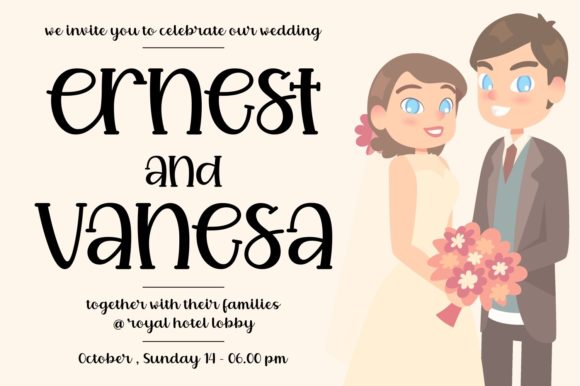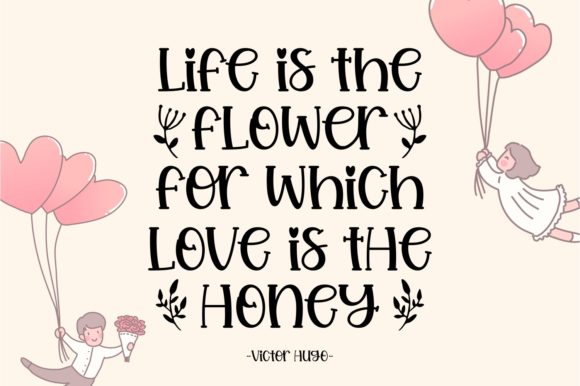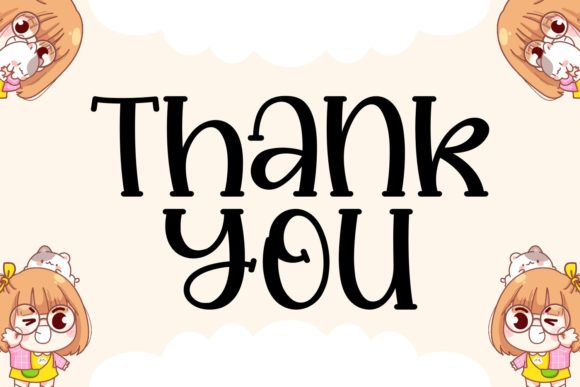
Introducing Gloria Jessica Font: The Playful Serif Font for Happy Projects
Are you looking for a font that can add a touch of playfulness and happiness to your designs? Look no further than the Gloria Jessica Font! This delightful serif font is perfect for creating a wide range of projects, from children’s magazines and books to apparel designs, product packaging, and more. In this article, we’ll take a closer look at the Gloria Jessica Font, its features, and how you can use it to bring a smile to your audience’s faces.
The Personality of Gloria Jessica Font
Gloria Jessica Font is a playful serif font that exudes positive and happy vibes. Its unique design makes it an excellent choice for projects that require a friendly and approachable tone. The font’s serifs are carefully crafted to add a touch of elegance, while its overall design remains fun and lively. Whether you’re working on a children’s book, a kids’ magazine, or a product packaging design, Gloria Jessica Font is sure to bring a sense of joy and whimsy to your project.
Features of Gloria Jessica Font
So, what makes Gloria Jessica Font so special? Here are some of its key features:
• Playful serif design: Gloria Jessica Font features a unique serif design that’s both playful and elegant.
• Positive and happy vibes: The font’s design is carefully crafted to evoke feelings of happiness and positivity.
• Versatile: Gloria Jessica Font can be used for a wide range of projects, from children’s books to apparel designs and product packaging.
• Easy to read: Despite its playful design, Gloria Jessica Font remains easy to read, making it perfect for body text and headlines.
Use Cases for Gloria Jessica Font
Gloria Jessica Font is an incredibly versatile font that can be used for a wide range of projects. Here are some use cases to get you started:
• Children’s magazines and books: Gloria Jessica Font is perfect for creating engaging and fun content for kids.
• Apparel designs: Add a playful touch to your t-shirt designs, hoodies, and other apparel with Gloria Jessica Font.
• Product packaging: Use Gloria Jessica Font to create eye-catching packaging designs that stand out on store shelves.
• Crafting and DIY projects: Gloria Jessica Font is perfect for crafters and DIY enthusiasts who want to add a personal touch to their projects.
Tips for Using Gloria Jessica Font
Here are some tips for getting the most out of Gloria Jessica Font:
• Use it for headlines and body text: Gloria Jessica Font is easy to read, making it perfect for both headlines and body text.
• Experiment with colors: Gloria Jessica Font looks great in a variety of colors, so don’t be afraid to experiment and find the perfect hue for your project.
• Pair it with other fonts: Gloria Jessica Font pairs well with a range of other fonts, so feel free to get creative and find the perfect combination for your project.
Gloria Jessica Font is a playful serif font that’s perfect for designers and crafters who want to add a touch of happiness and positivity to their projects. With its unique design, versatility, and ease of use, Gloria Jessica Font is an excellent choice for a wide range of projects. Whether you’re working on a children’s book, apparel design, or product packaging, Gloria Jessica Font is sure to bring a smile to your audience’s faces. So why not give it a try and see what amazing projects you can create?